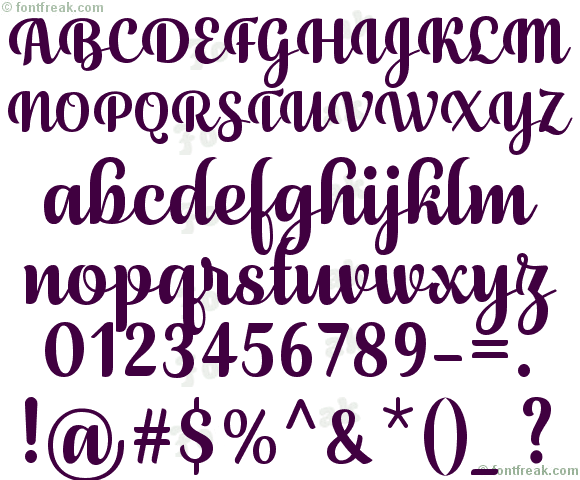
July Seventh
The July Seventh font, designed by Situjuh Nazara, is a captivating script typeface that beautifully blends elegance with a modern flair. This font features a smooth, flowing design characterized by its graceful curves and dynamic strokes, making it an ideal choice for a variety of creative projects. The stroke weight exhibits a pleasing contrast, with thicker accents that add depth while maintaining legibility. The spacing between characters is thoughtfully arranged, allowing for a harmonious reading experience that enhances its overall aesthetic.
This font is particularly well-suited for wedding invitations, where its romantic style can elevate the beauty of the occasion. It also shines in the realm of branding, perfect for logos that require a touch of sophistication. Graphic designers will appreciate its versatility for crafting eye-catching social media graphics and content, while small business owners can effectively use it in restaurant menus to convey an inviting atmosphere. Additionally, July Seventh works wonderfully for personal stationery, adding a unique touch to letters and notes.
What sets the July Seventh font apart is its ability to evoke emotion while remaining functional. Its elegant curves and contemporary charm make it a standout choice for those looking to make a memorable impression. Whether used in print or digital formats, this font promises to bring sophistication and creativity to any design endeavor.